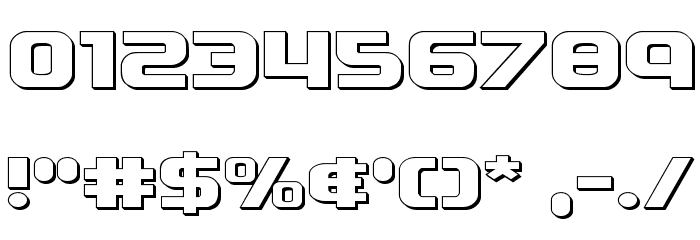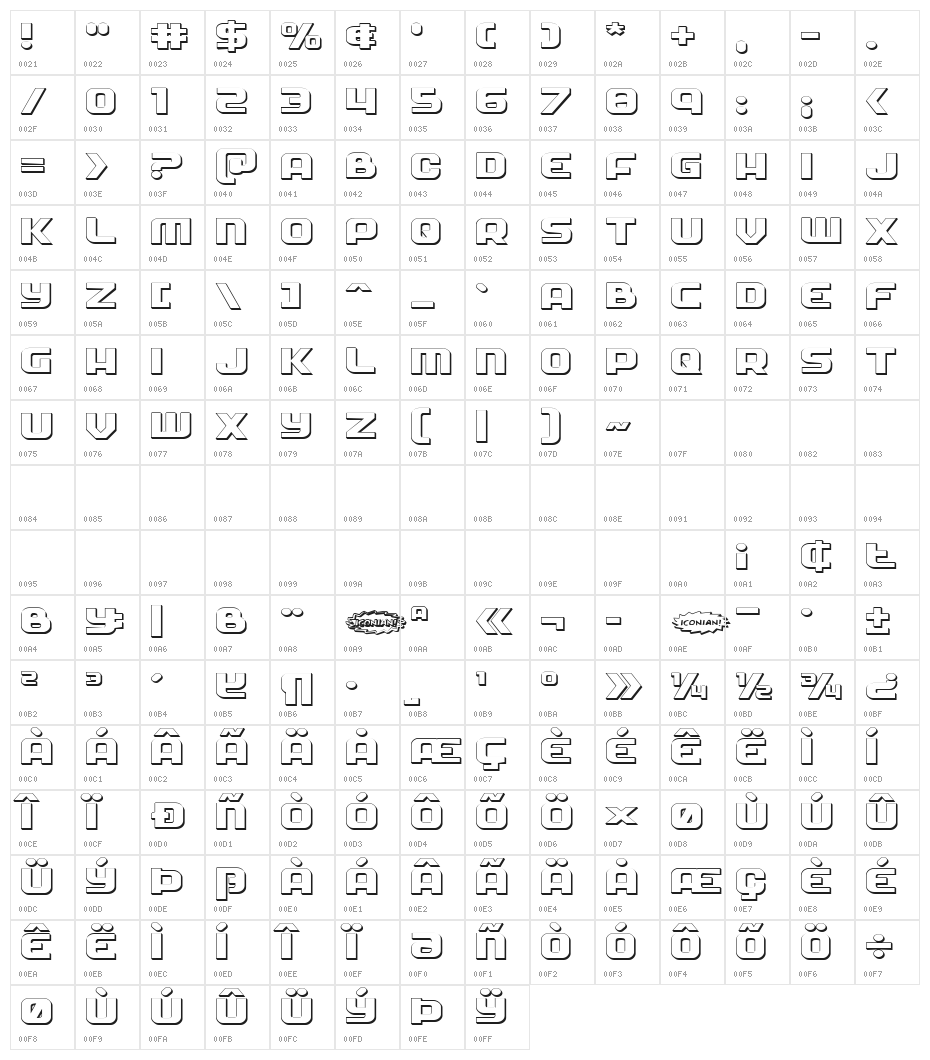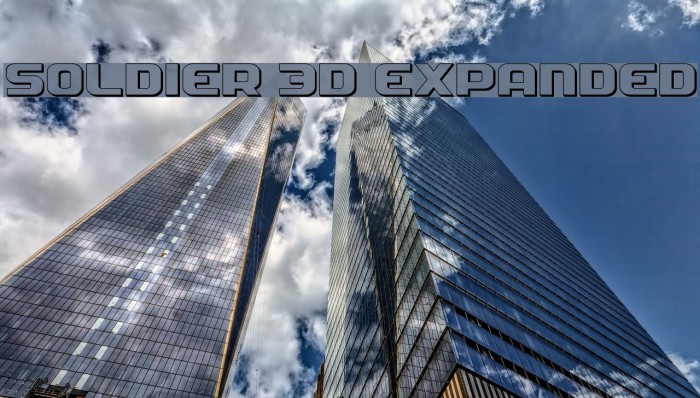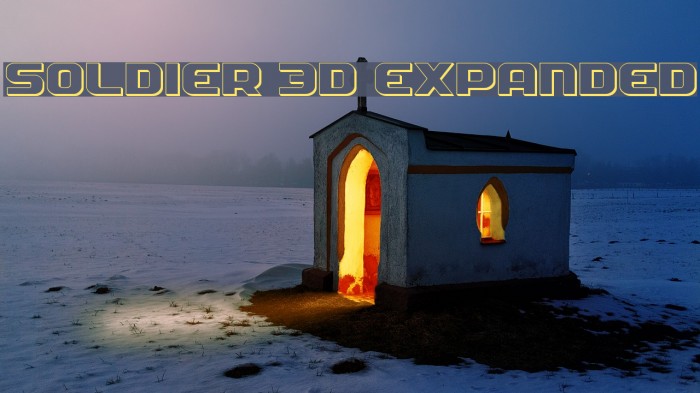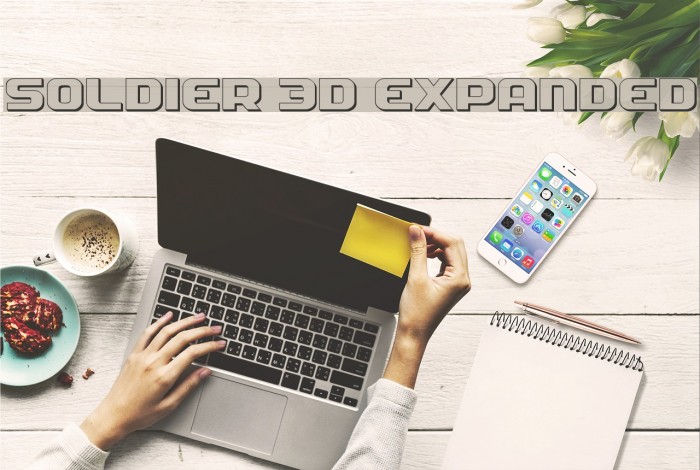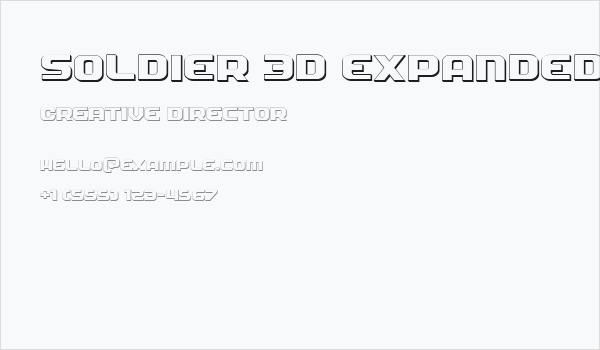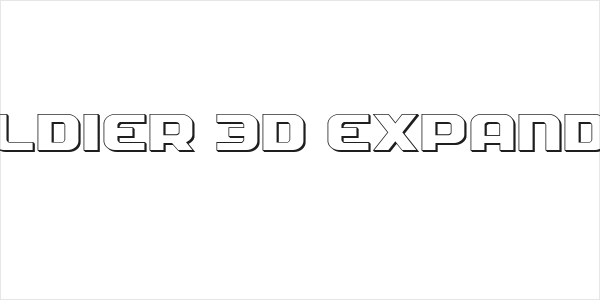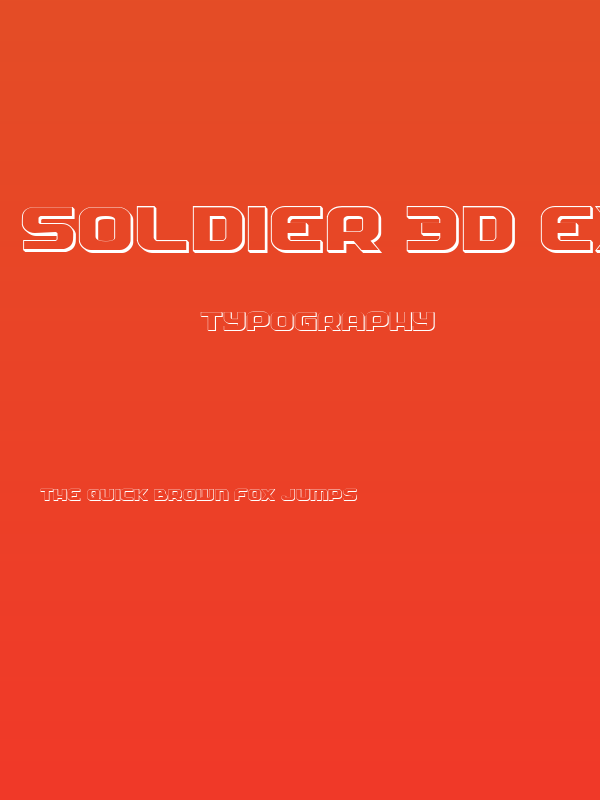
Soldier 3D Expanded Font
Soldier 3D Expanded Description
This font features a bold, three-dimensional design with a distinct outline that gives each character a sense of depth and solidity. The geometric shapes and clean lines create a modern and futuristic appearance, making it stand out in any design. The uppercase and lowercase letters maintain a consistent style, with sharp angles and uniform stroke widths. The numerals and special characters are equally bold and well-defined, ensuring readability and visual impact. This font's expanded width adds to its commanding presence, making it ideal for attention-grabbing headlines or titles.